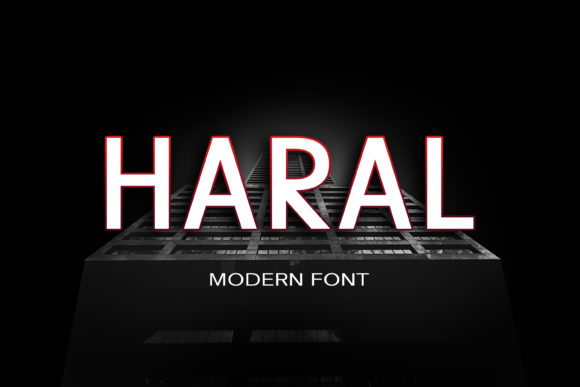
Haral Font
Download Haral Font for free! Created by DmDesignsStoreArt and published by Aron Reynolds, this sans serif font family is perfect for adding a unique touch to your designs.
Captivating your audience with Haral, the bold and modern sans serif font ready to elevate your designs. Crafted by DmDesignsStoreArt, this masterpiece offers a distinctive style, exuding both confidence and elegance.
With its clean lines and modern simplicity, Haral Font becomes the perfect choice for striking headlines, sleek logos, website designs, and sophisticated branding materials. Unleash your creativity and watch your projects come to life with a font that demands attention.
Step into a world of boundless possibilities with Haral Font. Its versatility allows you to effortlessly create designs that resonate with your audience. From playful social media posts to professional presentations, Haral Font adapts seamlessly to any project, adding a touch of uniqueness that sets you apart.
With Haral Font, you're not just downloading a font—you're investing in a powerful tool to communicate your message with impact and style. Experience the difference a carefully designed font can make in capturing hearts and driving results.
Don't miss this opportunity to leave a lasting impression. Embrace the power of Haral Font today and unlock the gateway to stunning designs that speak louder than words.